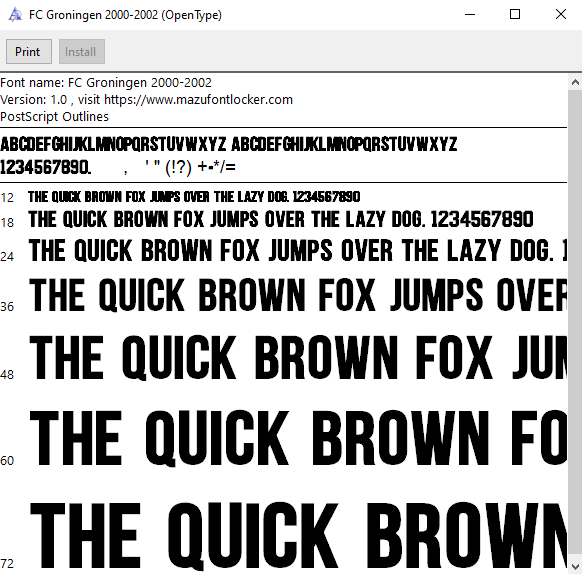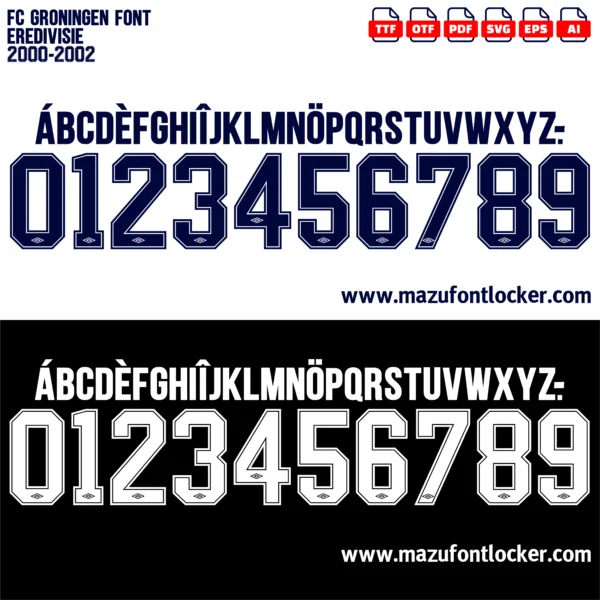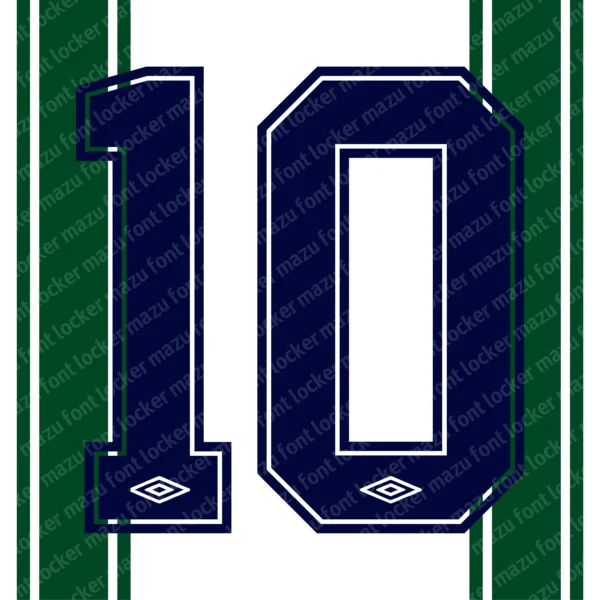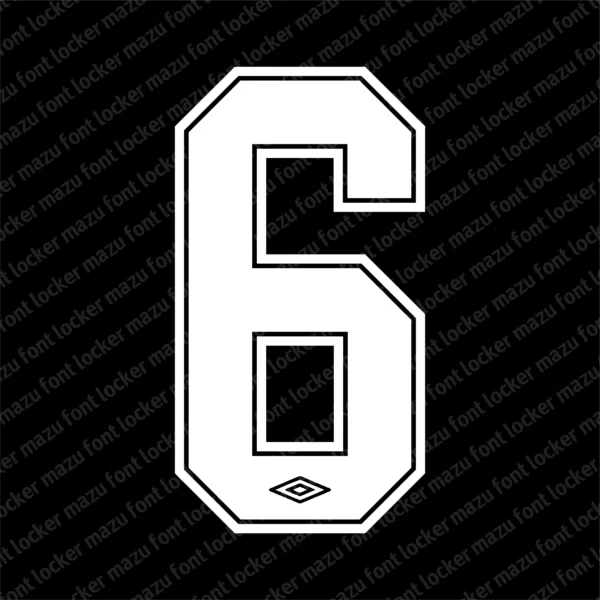
FC Groningen 2000-2002 Font Vector – Legendary Trots van het Noorden Masterpiece
This font captures the razor-sharp, thunderous lettering that embodies FC Groningen’s proud club identity, rich Dutch football heritage, iconic green-and-white tradition, and unstoppable fighting spirit — delivering premium quality and explosive energy for jersey mockups, football graphics, sports branding, and fan creations.
FC Groningen 2000-2002 Font Vector – Trots van het Noorden Heritage Typeface
The FC Groningen 2000-2002 Font Vector is a premium typeface that accurately recreates the official match lettering worn by FC Groningen during the 2000-2002 period. This high-quality vector font kit captures the bold, clean, and instantly recognizable typography that perfectly complements the club’s iconic green and white identity.
Designed for professional designers, football enthusiasts, and passionate Groningen supporters, the FC Groningen 2000-2002 Font Vector delivers exceptional authenticity for creating realistic jersey mockups, football merchandise, social media graphics, match posters, and custom fan artwork. Every character has been carefully recreated to match the powerful and precise visual style of one of the Netherlands’ most historic and passionate football clubs.
Why Choose FC Groningen 2000-2002 Font Vector
This font stands out thanks to its precise vector construction and authentic club-inspired styling. Every letter and numeral has been meticulously recreated to match the official shirt lettering used throughout the 2000-2002 seasons and associated campaigns. Whether you’re producing professional kit templates or creating eye-catching football content, the FC Groningen 2000-2002 Font Vector delivers a genuine match-ready appearance inspired by the proud identity of the Trots van het Noorden.
The lettering featured in the FC Groningen 2000-2002 Font Vector combines clean geometric lines with powerful modern proportions. The result is a premium and highly readable typeface that reflects FC Groningen’s fighting spirit, attacking football, resilience, and proud northern Dutch heritage.
• Complete uppercase A–Z alphabet and numbers 0–9 in authentic FC Groningen 2000-2002 style
• Recreate the distinctive look of FC Groningen player names and squad numbers for creative projects
FC Groningen 2000-2002 Season
The 2000-2002 period marked an important chapter for FC Groningen as the club competed in the Eredivisie while establishing itself as a consistent and ambitious side from the north of the Netherlands. Competing in high-profile domestic matches, FC Groningen showcased its iconic green and white kit with pride.
Known for its rich history, passionate supporters, and commitment to attractive football, FC Groningen remains one of the Netherlands’ most celebrated clubs. The FC Groningen 2000-2002 Font Vector is designed to capture the bold visual character associated with the club’s identity during that era. For more information about the club and the latest news, visit the official FC Groningen website.
The FC Groningen 2000-2002 Font Vector is an independently designed typeface package inspired by the official shirt lettering associated with the 2000-2002 campaigns. It has been carefully recreated for football enthusiasts, graphic designers, collectors, and creators producing custom jersey concepts, football artwork, and fan-made projects. Please note that this is a fan-made design resource and is not an official product of FC Groningen, the Eredivisie, the KNVB, or any associated organization.